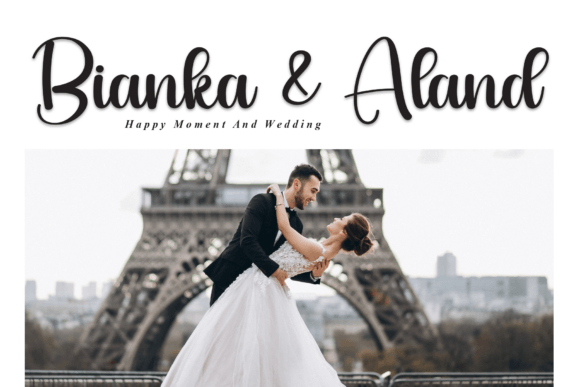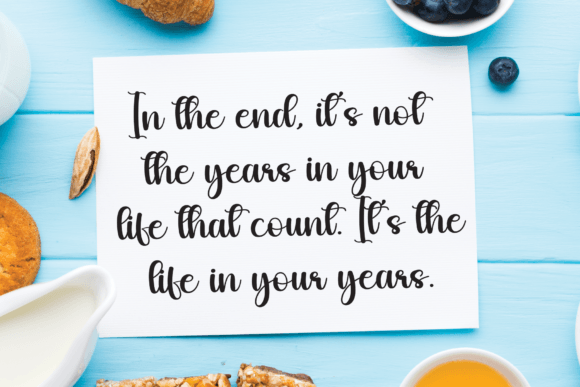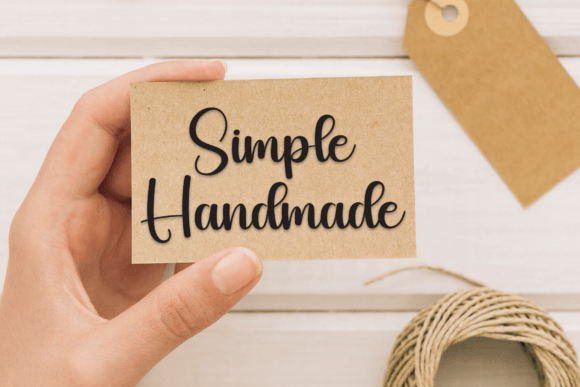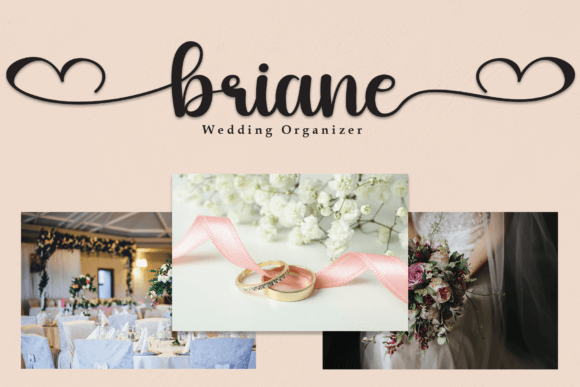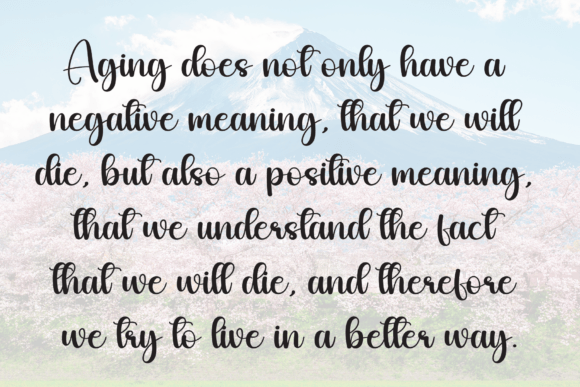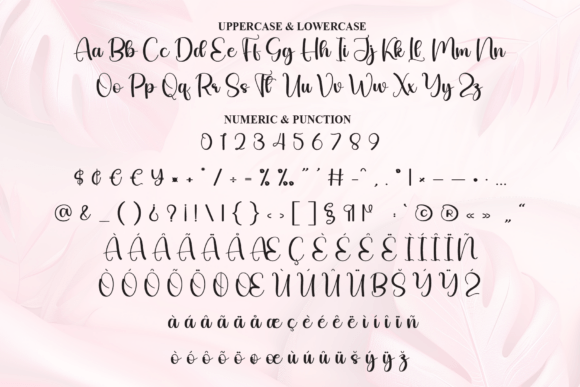
Meet Your New BFF: The Barbie Font
Have you ever been brainstorming a project and suddenly, the perfect font pops into your head? For designers, those ‘aha’ moments are a treasure trove of inspiration. For me, it was a sunny Saturday afternoon, surrounded by colorful markers and sticky notes, when I stumbled upon the Barbie Font. Its playful, handwritten charm instantly made me think of a bright smile and a friendly hello.
The Barbie Font is a delightful, handwritten font that’s perfect for adding a touch of whimsy to your designs. Whether you’re creating a birthday invitation, a heartfelt letter, or a fun social media post, this font is sure to bring a smile to your readers’ faces. As a valuable addition to any designer’s toolkit, the Barbie Font offers endless possibilities for creativity and self-expression.
- Unique Characteristics: The Barbie Font features a playful, cursive script with a distinctive, flowing design, making it perfect for creating whimsical and feminine designs.
- Font Style: The font has a script style with swashes and flourishes, adding an extra touch of elegance and sophistication to any design.
- Font Weight: The font comes in a range of weights, from Light to Bold, allowing designers to create a variety of visual effects and emphasis.
Overall, the Barbie font is a fun and playful addition to any design project. It’s a cursive script font that’s reminiscent of classic handwriting and is sure to bring a touch of whimsy to your designs.
- ✨ Friendly and approachable tone – perfect for children’s content or family-friendly brands
- ✨ Highly legible even at smaller font sizes
- ✨ Wide range of language support
- ⚠️ Limited versatility – may not be suitable for formal or professional content
- ⚠️ Can be overly sweet or childish in certain contexts
- ⚠️ May not be ideal for display font use, as it can be quite ornate
Overall, the Barbie font is a great choice for designers looking to add a touch of playfulness to their designs. However, it may not be the best fit for every project. Be sure to consider the tone and style of your content before selecting this font.
For best results, use the Barbie font in a bold, playful, and feminine context, such as:
– Children’s product packaging
– Fashion branding
– Beauty and cosmetics labels
– Retro-themed designs
– Whimsical illustrations
The Barbie font is perfect for:
– Creating eye-catching headlines
– Designing feminine and playful graphics
– Adding a touch of nostalgia to modern designs
– Creating custom labels and packaging for fashion and beauty products
Yes, the Barbie Font is suitable for digital signage and large-scale displays. However, designers should ensure that the font is properly optimized for the intended display size and resolution. This may involve using font hinting and anti-aliasing techniques to ensure clear and legible text at various scales.